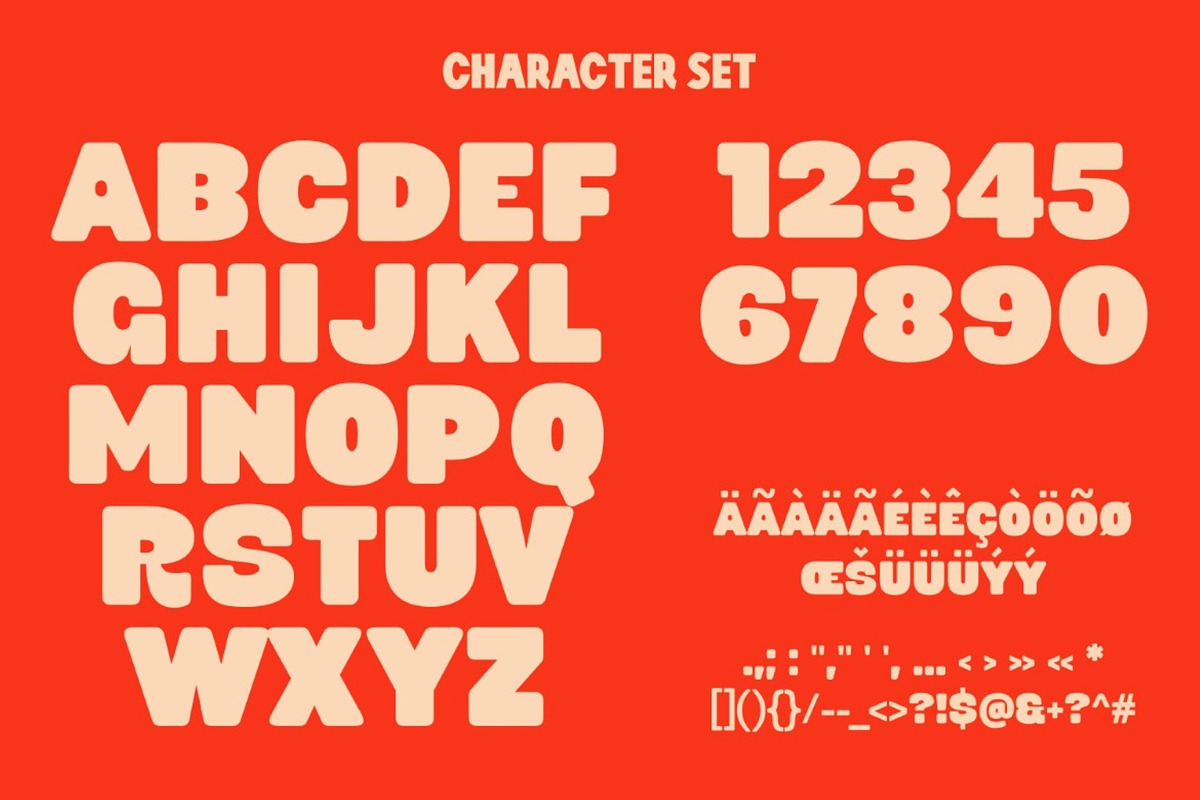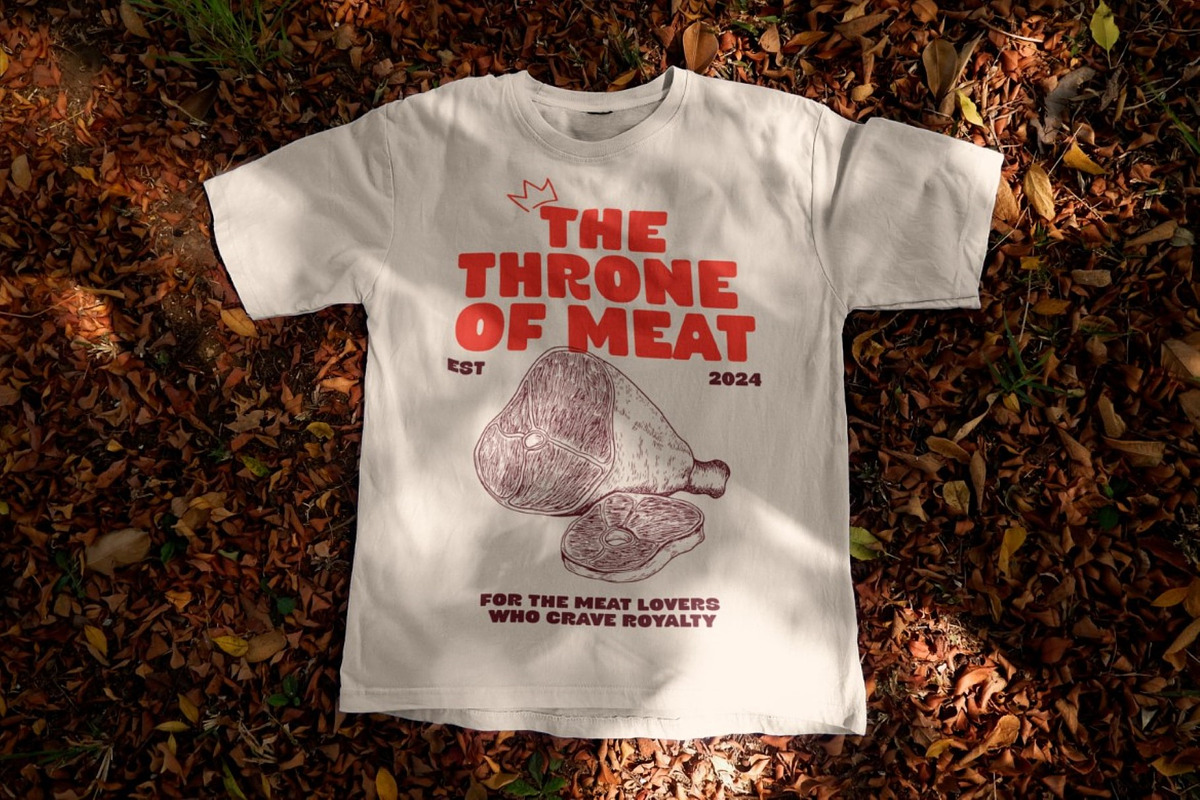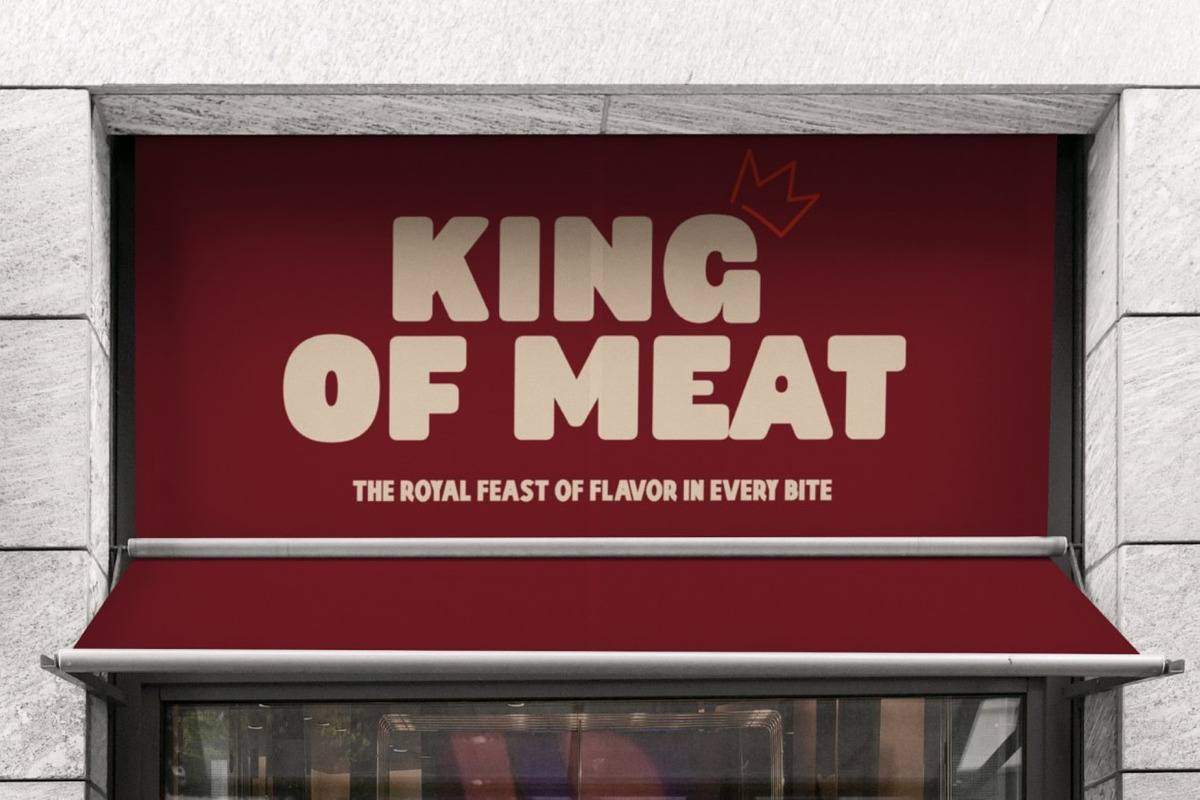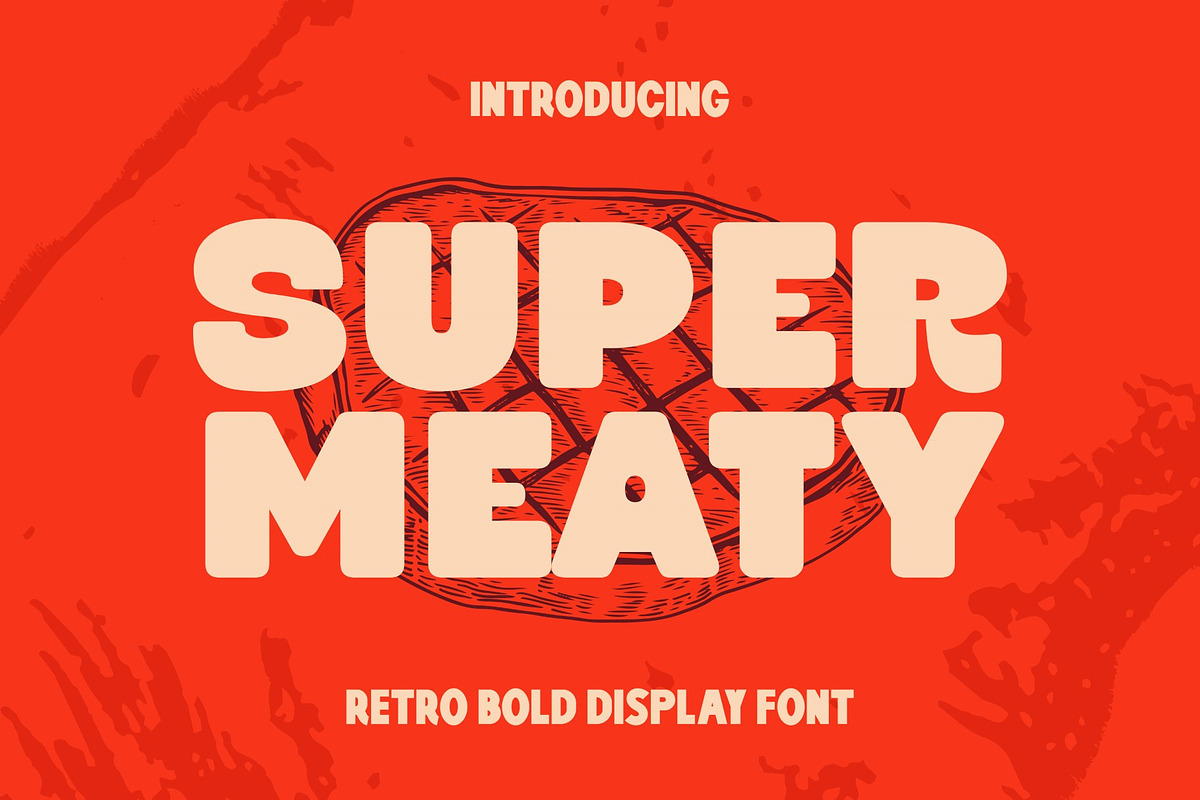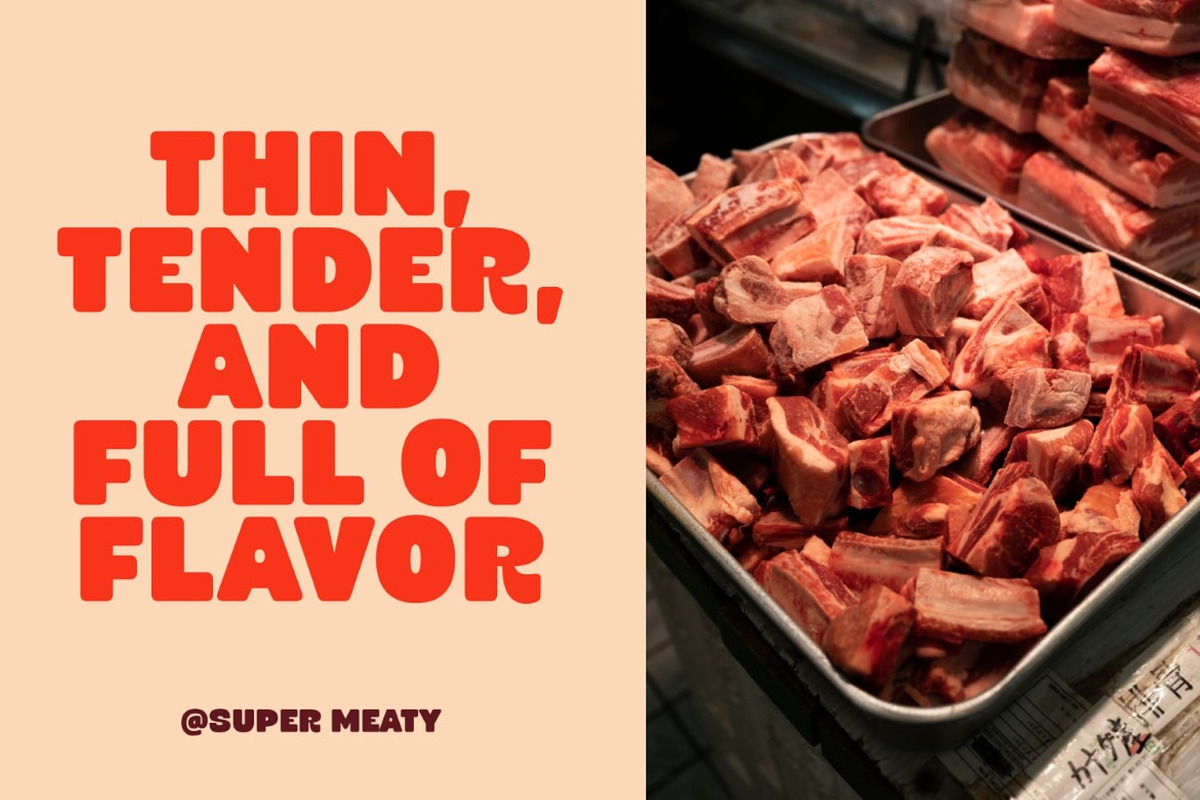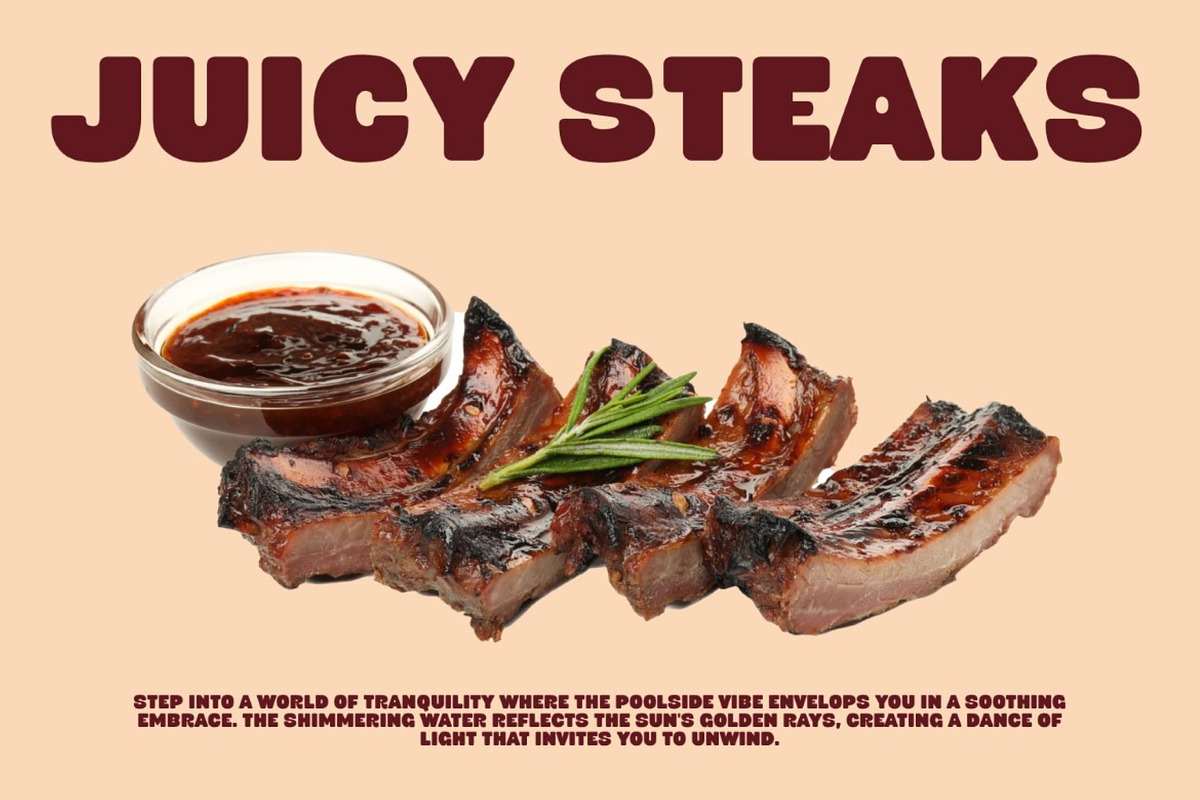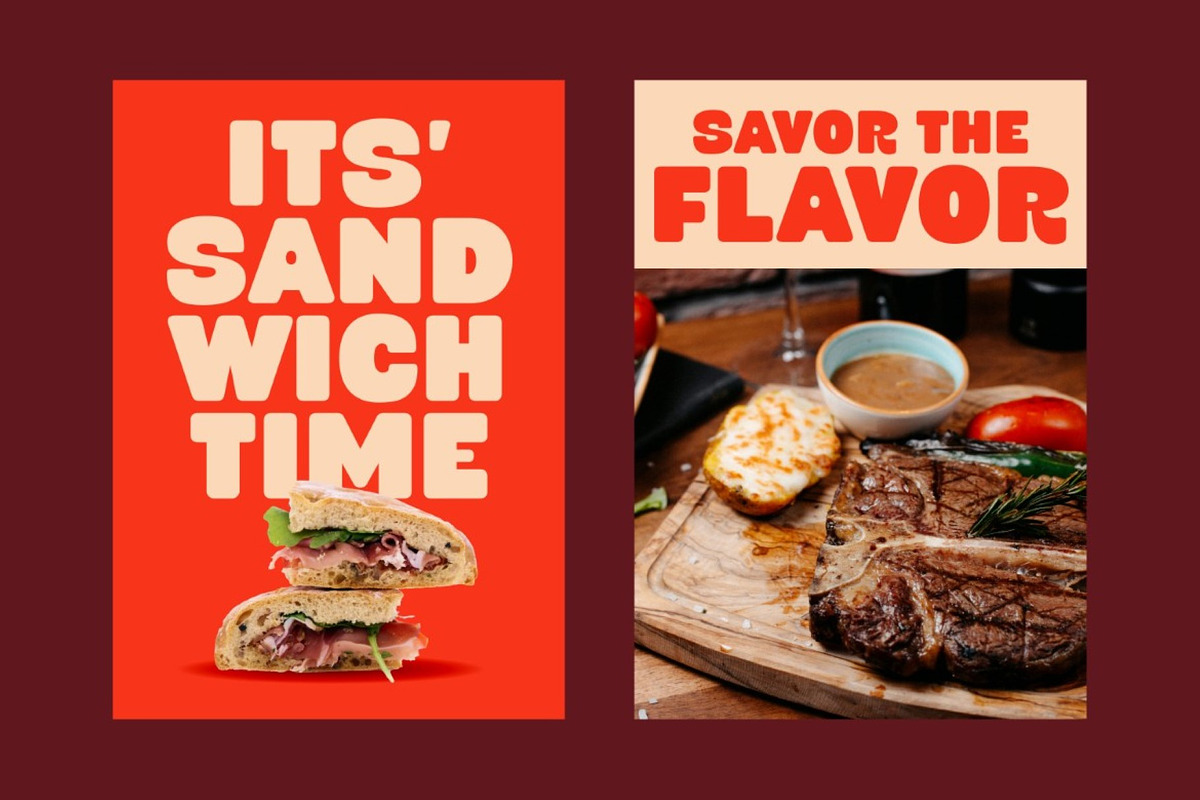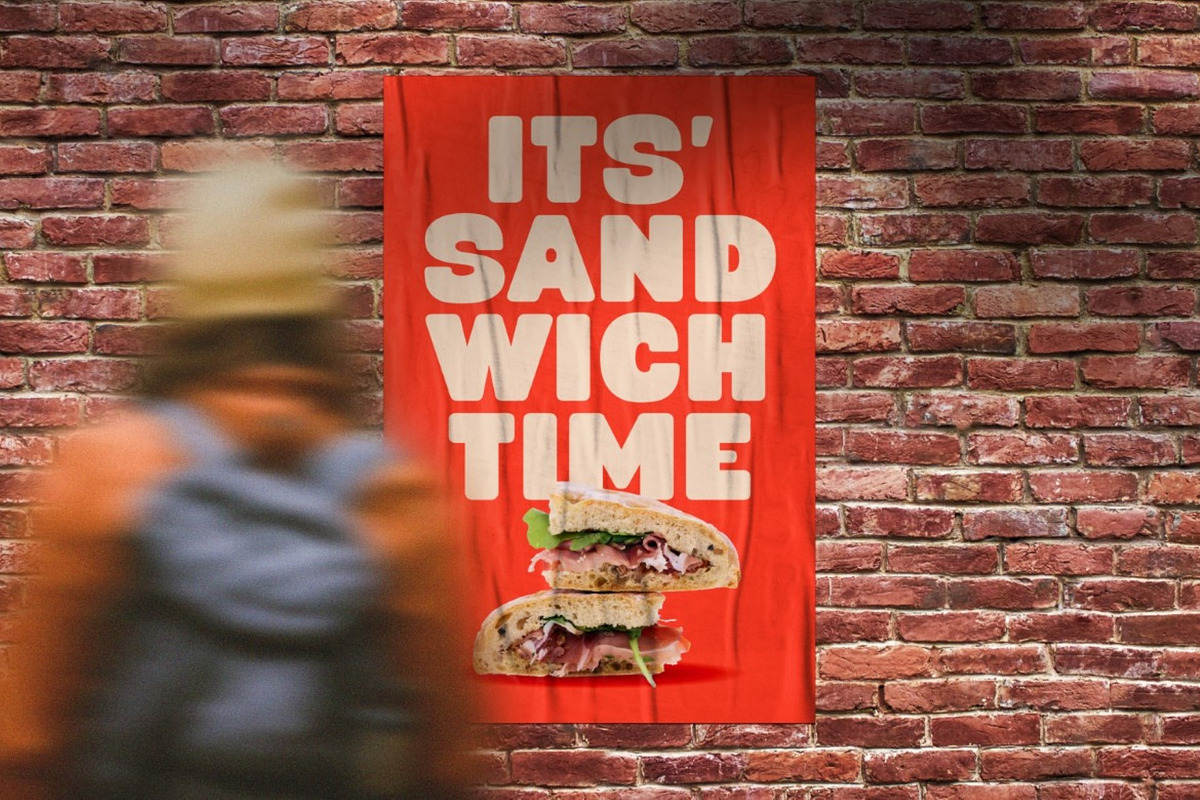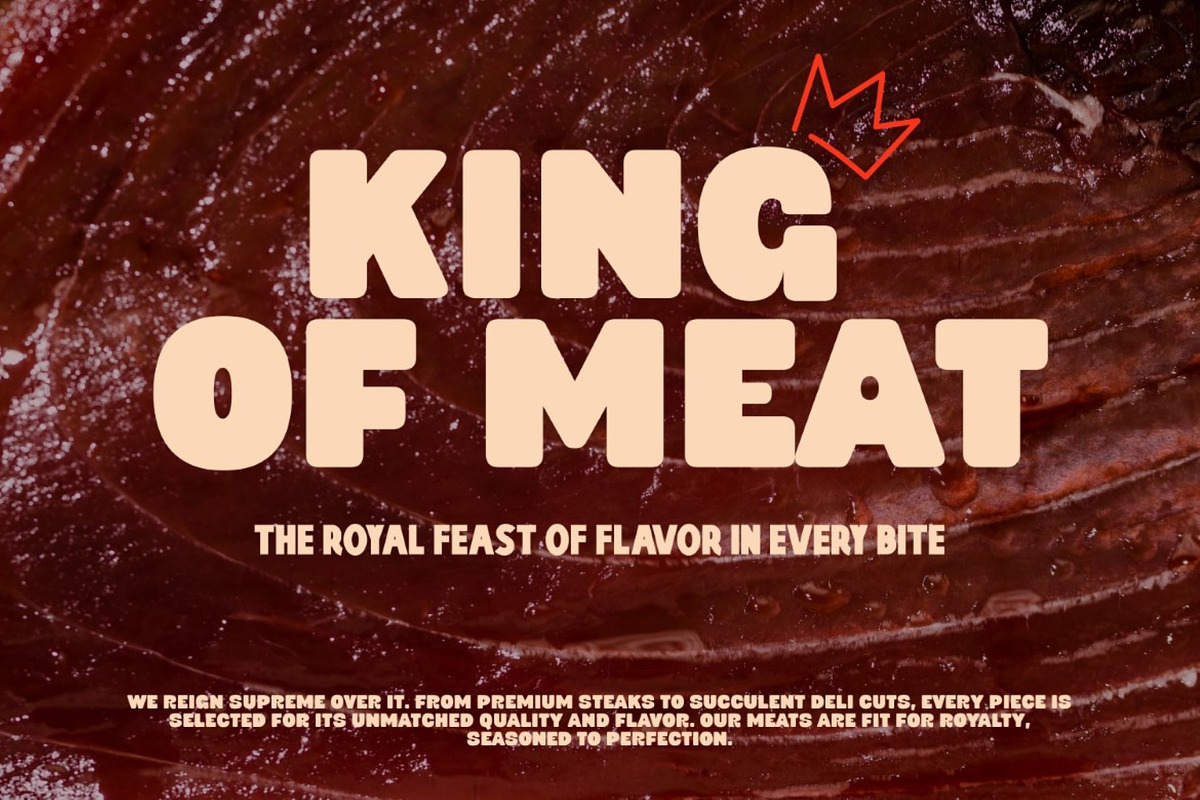
Super Meaty - Retro Bold Display Fon
Super Meaty is a bold and retro display font that's perfect for adding a touch of vintage charm to your food and beverage designs. Its playful curves and meaty texture make it ideal for creating eye-catching logos, packaging, menus, and more. Whether you're branding a burger joint or a butcher shop, Super Meaty is sure to make your designs stand out.